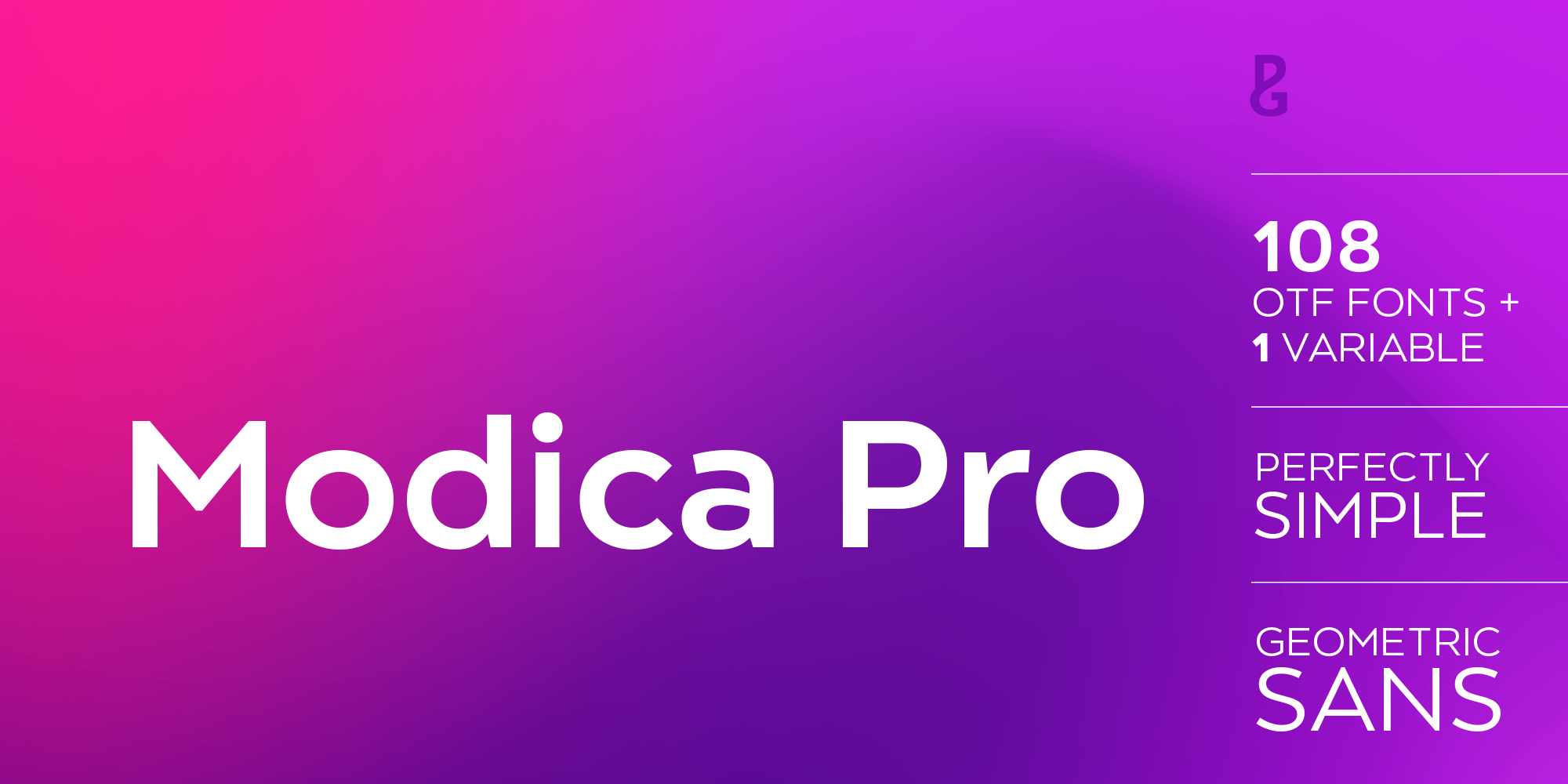
Modica Pro Font is perfect for professional business presentations, corporate identity systems, modern architectural signage, tech company branding, sleek product packaging, contemporary magazine layouts, clean website interfaces, and sophisticated marketing materials.
Modica Pro Font is exciting because it represents the pinnacle of professional typography design with its precisely engineered letterforms that deliver exceptional clarity and contemporary sophistication. The typeface strikes the perfect balance between approachable warmth and corporate authority, making it ideal for brands that need to communicate both professionalism and human connection.
Modica Pro Font family includes Thin, Light, Regular, Medium, Bold, and Black weights, each with matching oblique styles, plus extensive language support and OpenType features, providing designers with comprehensive typographic control for creating polished, international-ready communication systems.
Whether you're developing a multinational corporation's brand guidelines, designing professional software interfaces, or creating executive-level presentations, Modica Pro Font Free Download offers unmatched versatility and refined elegance. This exceptional typeface combines Swiss design principles with contemporary functionality, ensuring optimal performance across all media platforms and communication channels. The font's carefully calibrated proportions and extensive character set make it particularly effective for global brands requiring consistent typography across multiple languages and cultural contexts. Design professionals worldwide consistently choose Modica Pro Font when projects demand typography that communicates competence, innovation, and international sophistication, making it an indispensable asset for corporate communications, professional services branding, and any application where clean, authoritative typography can enhance credibility and communicate excellence in today's competitive global marketplace.